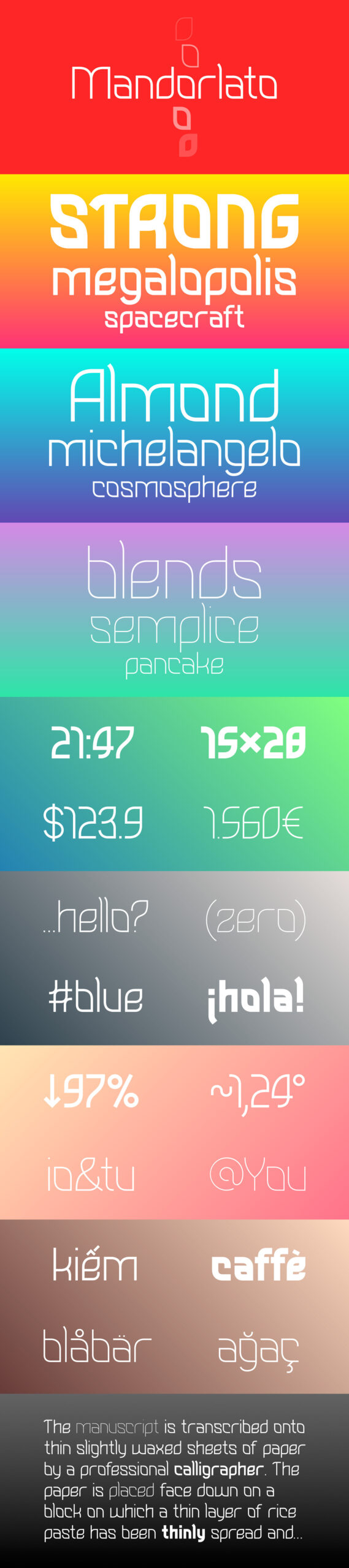
Mandorlato is an experimental font family, inspired by the almond shape. Designed by Stefano Giliberti from Brumale, this font family is great for creating eye catching headlines & posters with a modern or futuristic theme. It contains 5 weights and supports 91 languages and 505 glyphs. Free for personal and commercial use!